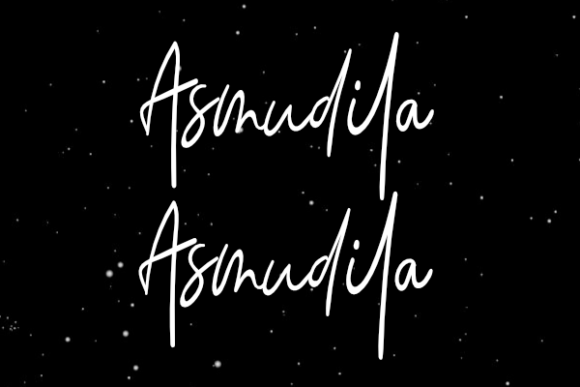
Asmudila Font
db-ku.com - Script & Handwritten -- Asmudila is the best choice for creating eye catching logos, branding and quotes. Every letter has a unique and beautiful touch, which will make your design come alive!